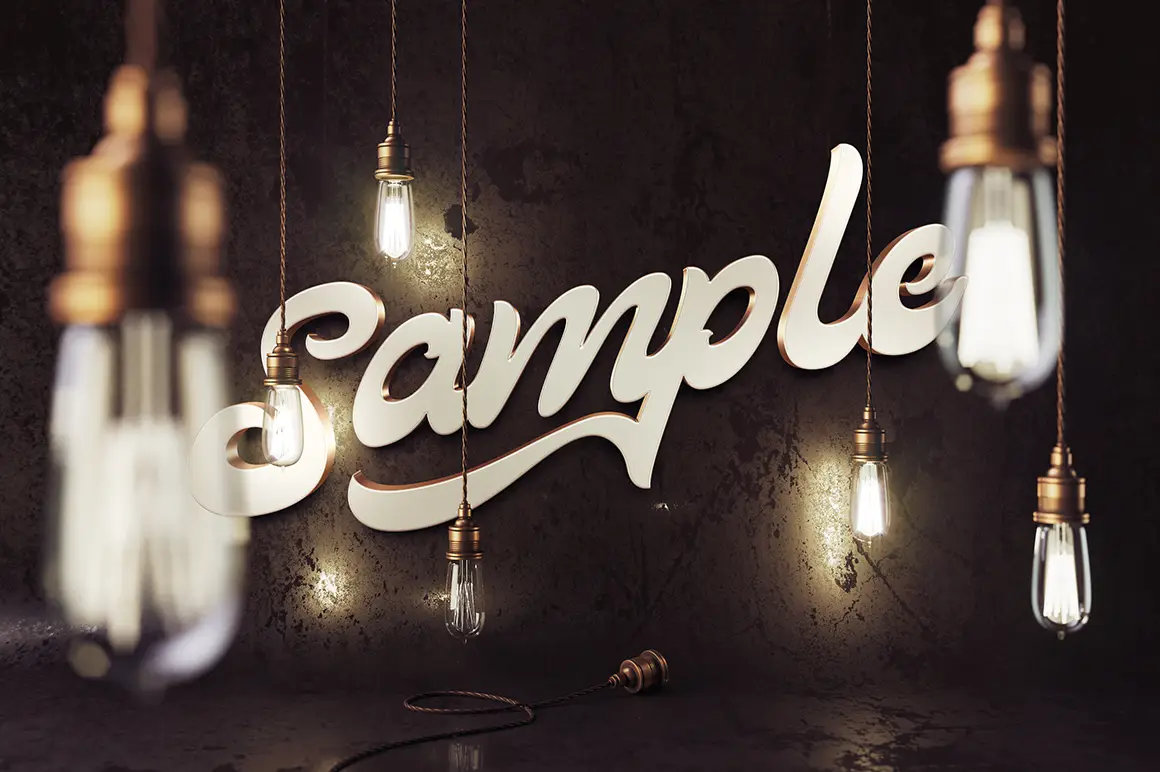
Calligraphic Fonts Bundle
Elevate your design projects with our exclusive Calligraphic Fonts Bundle. This carefully curated collection features a variety of elegant calligraphic fonts, perfect for adding a touch of sophistication to your branding, logos, invitations, and more.
• Multiple font styles including script, serif, and display
• Various weights to suit different design needs
Each font in this bundle is designed with attention to detail, ensuring smooth curves and beautiful letterforms. Ideal for both digital and print applications, these fonts provide versatility for any creative project.
• Perfect for wedding invitations, greeting cards, and personal branding
• Use in web design for a classy touch
• Combine different styles for unique typographic compositions